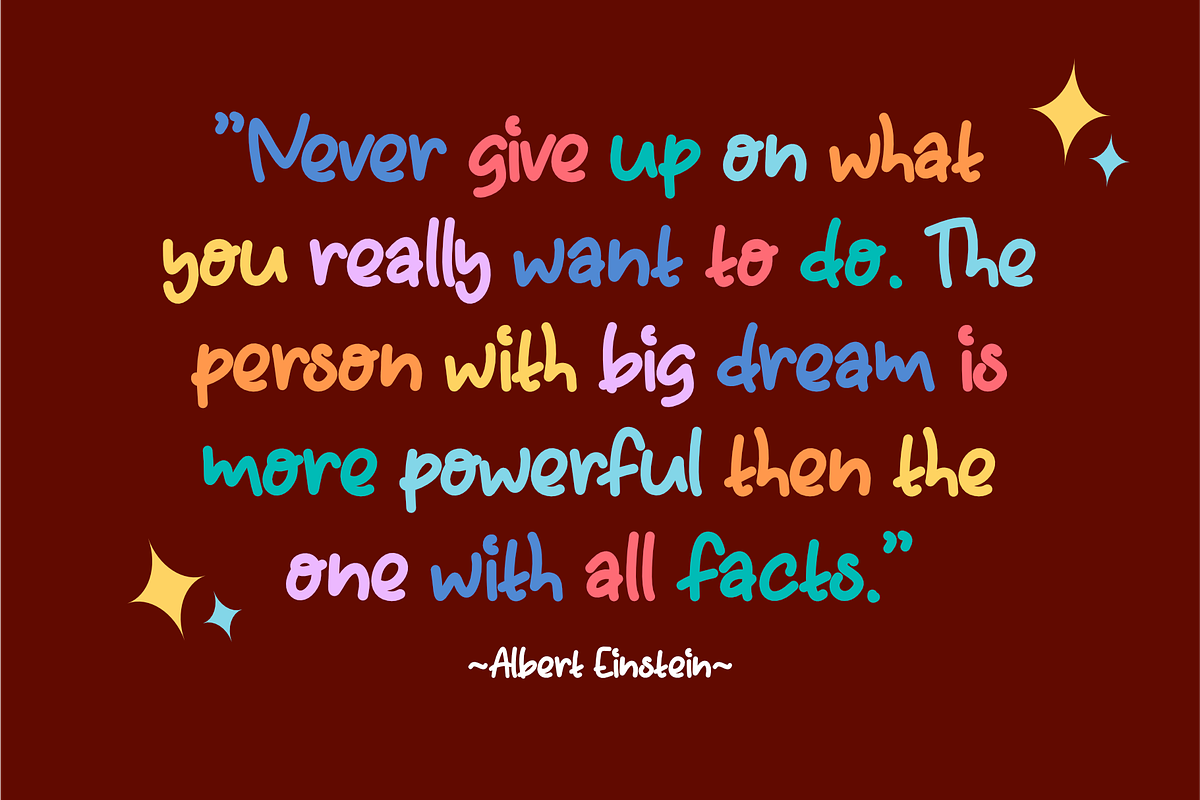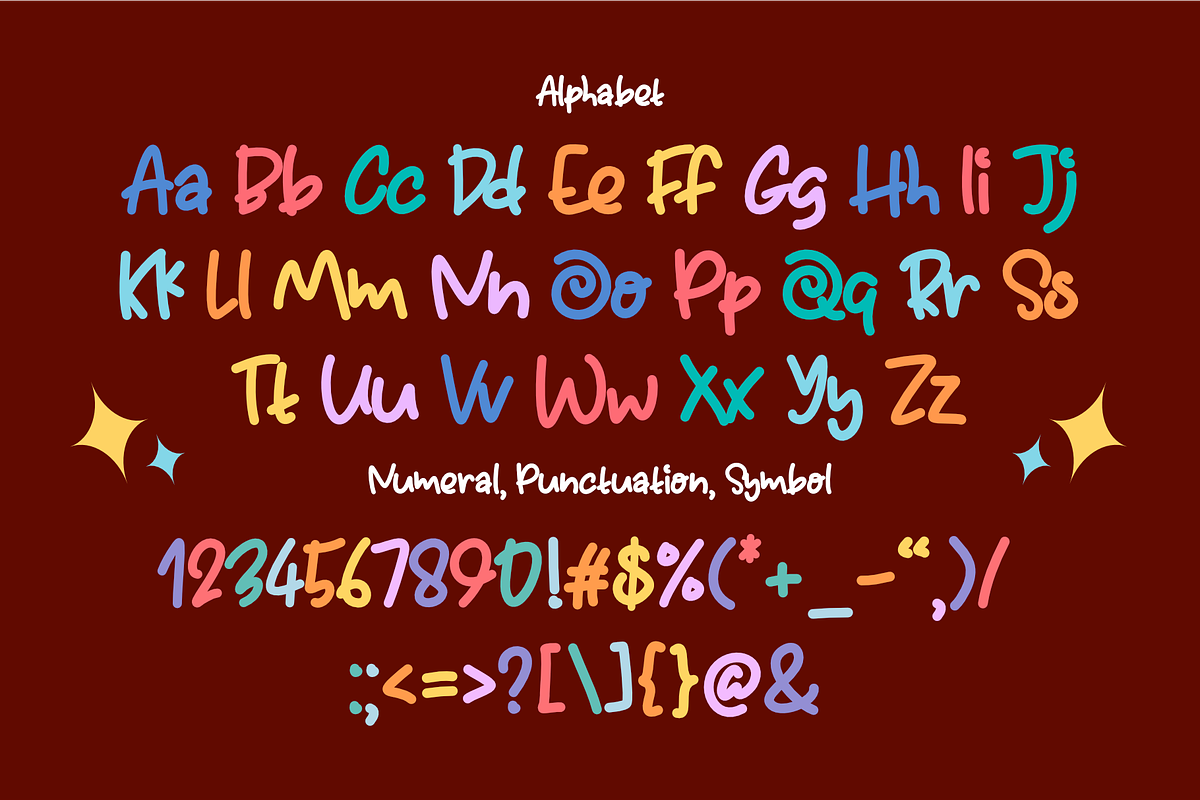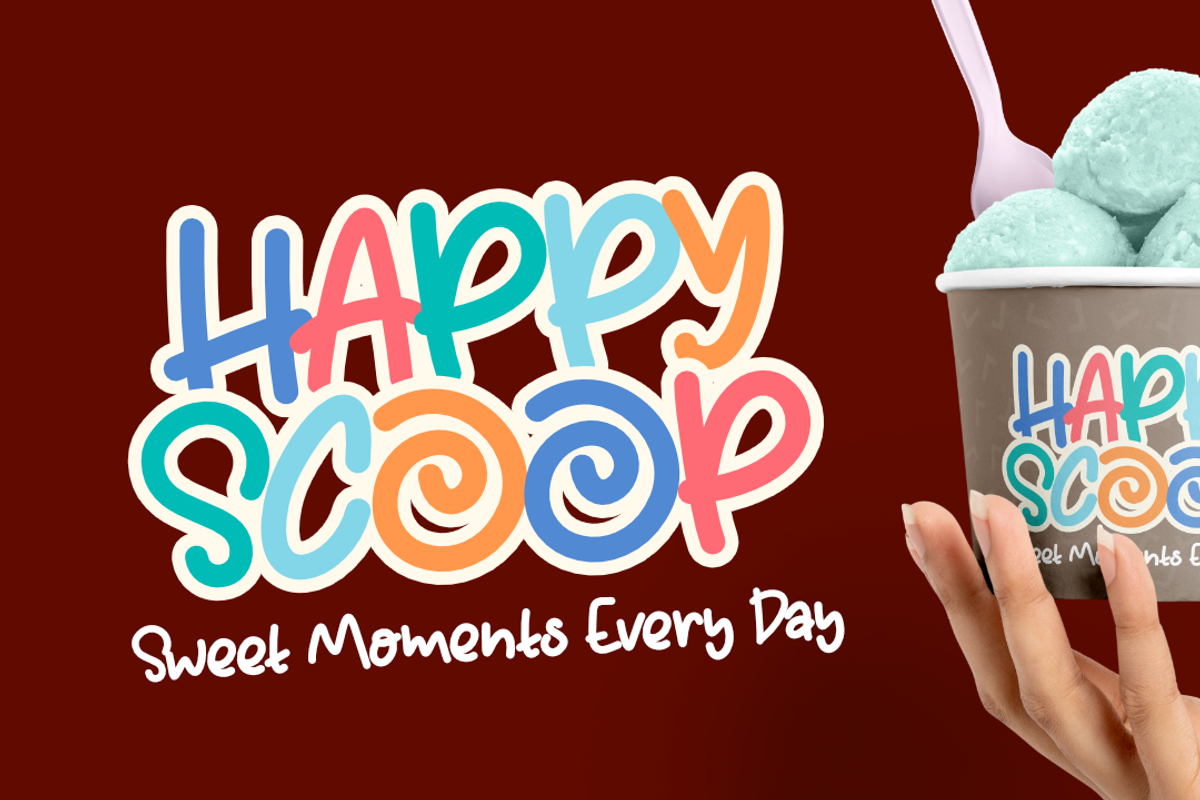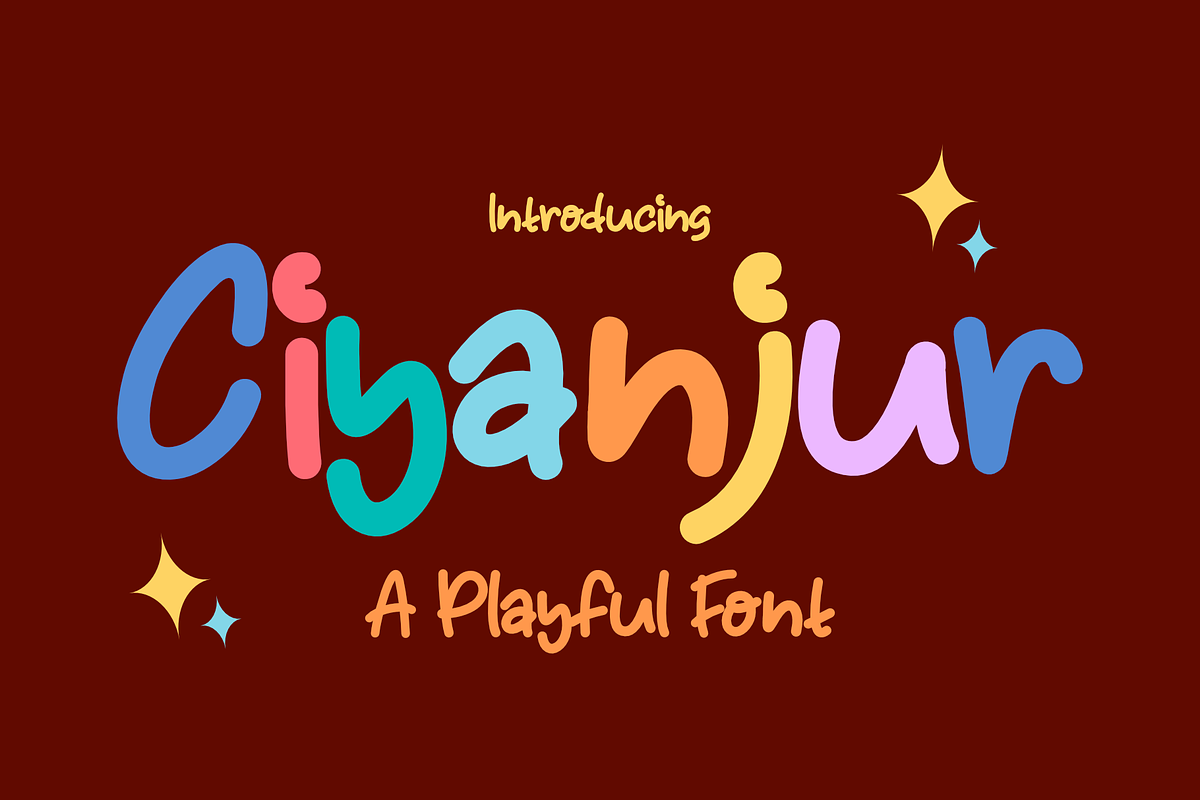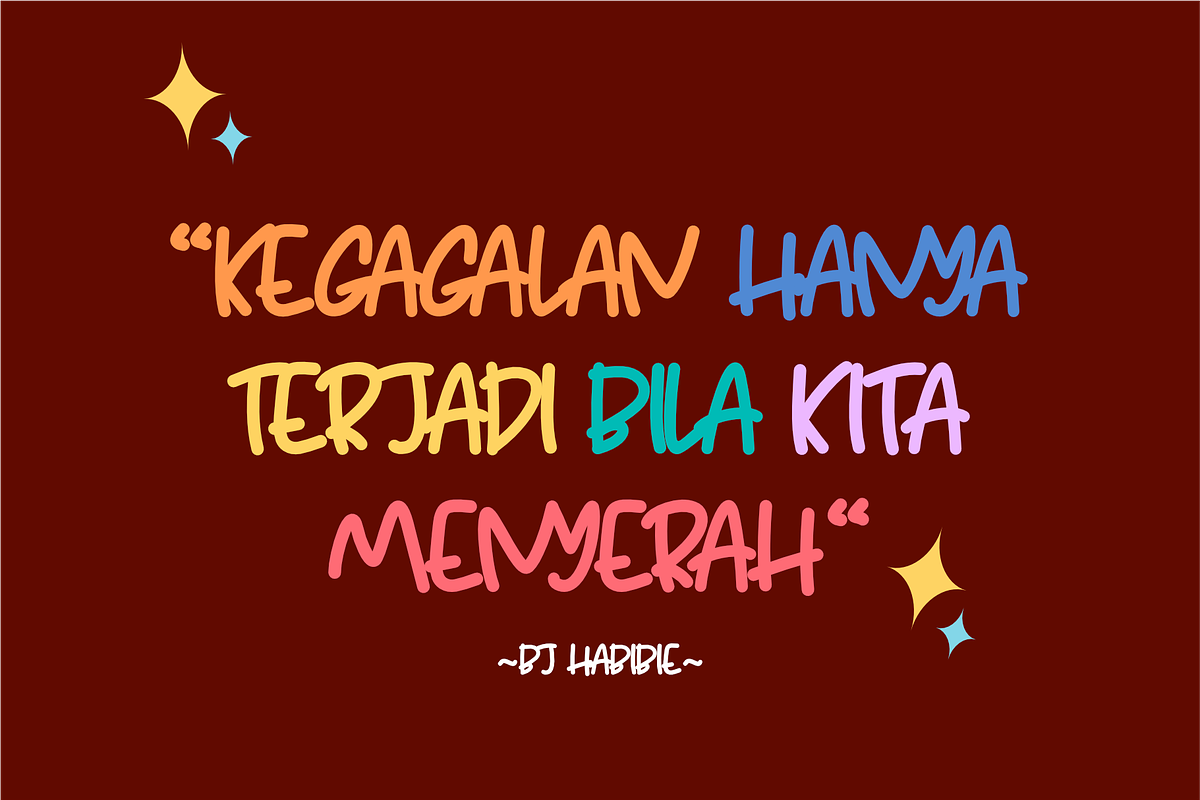
CIYARUNJ
Ciyanjur – A Playful Handwritten Font
Bring warmth, creativity, and fun to your designs with Ciyanjur, a playful handwritten font designed to make every project feel cheerful and approachable. Featuring smooth rounded strokes and a natural handwritten style, Ciyanjur delivers a friendly personality that works beautifully across both digital and print designs.
Whether you're creating children's books, educational materials, branding, product packaging, social media graphics, posters, greeting cards, or eye-catching quotes, this font adds a joyful and authentic touch while remaining highly legible.
Its casual appearance makes it perfect for creative projects that need a relaxed, fun, and inviting feel without sacrificing readability.
**Perfect For : **
Children's Books
Kids Branding
Educational Materials
School Projects
Posters
Greeting Cards
Quotes
YouTube Thumbnails
Invitations
Stickers
Craft Projects
T-Shirts
Printable Designs
Canva Templates
Cricut & Silhouette Projects
**Font Features : **
Uppercase Letters
Lowercase Letters
Symbols
Easy to Read
Smooth Rounded Style
Add a playful handwritten personality to your next creative project with Ciyanjur, a font designed to make your ideas look fun, friendly, and unforgettable.